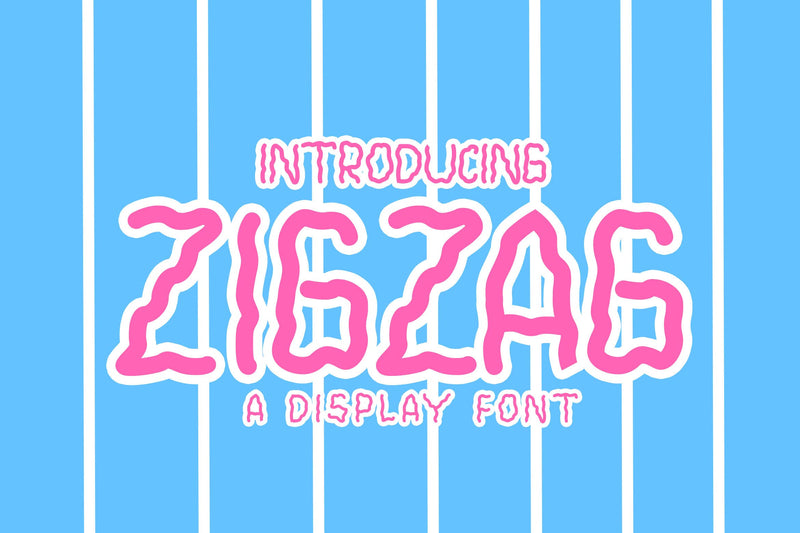
Zig Zag - Quirky Font
Zigzag is a display font with a unique and funny appearance with zigzag letters that add to its uniqueness. It can be used to create design ideas such as cute social media post designs, greeting cards, quetes and your favorite designs that add a cute impression to your designs.